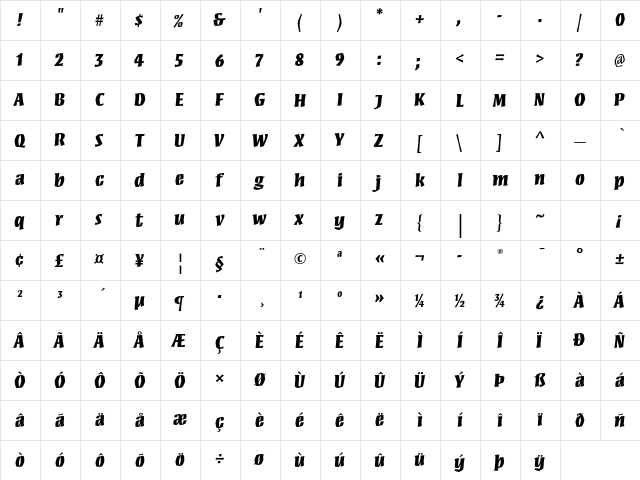
Mezz Std Black
| Designer | Michael Harvey |
Design Context for Mezz Std Typeface
Mezz Std takes a measured approach to typography — its balanced proportions and neutral character make it a reliable workhorse for both digital and print work.